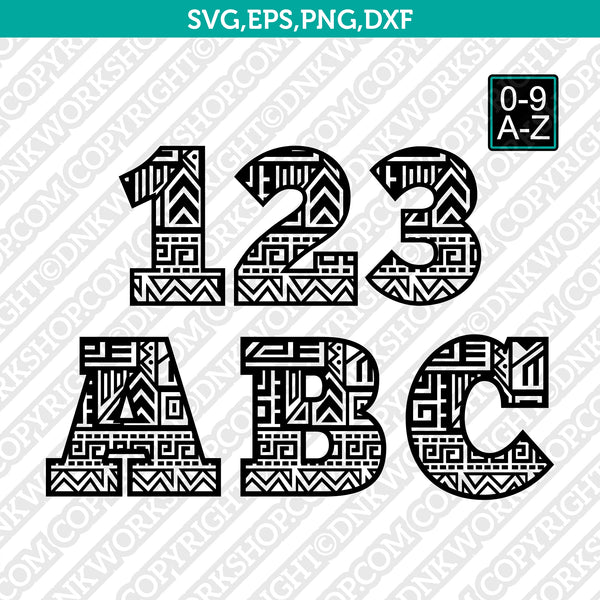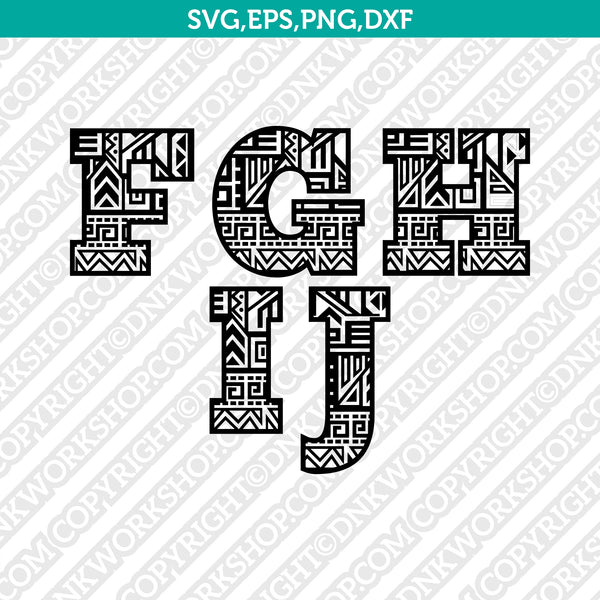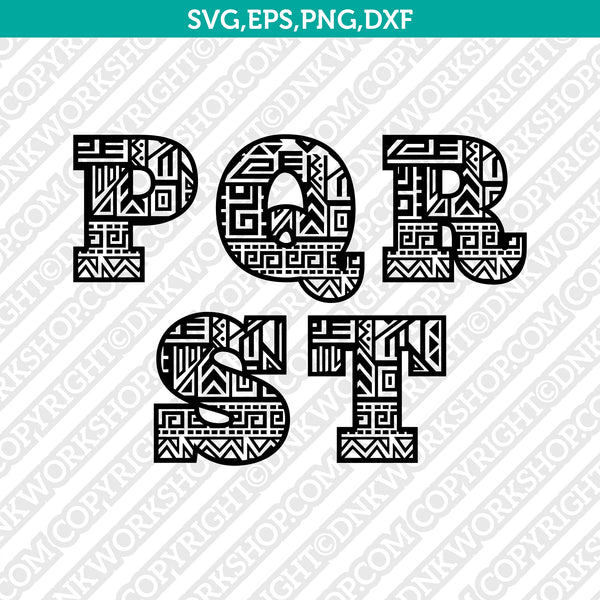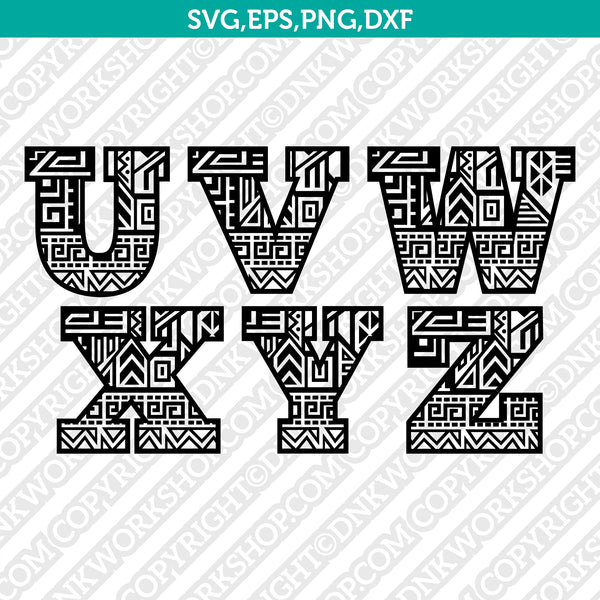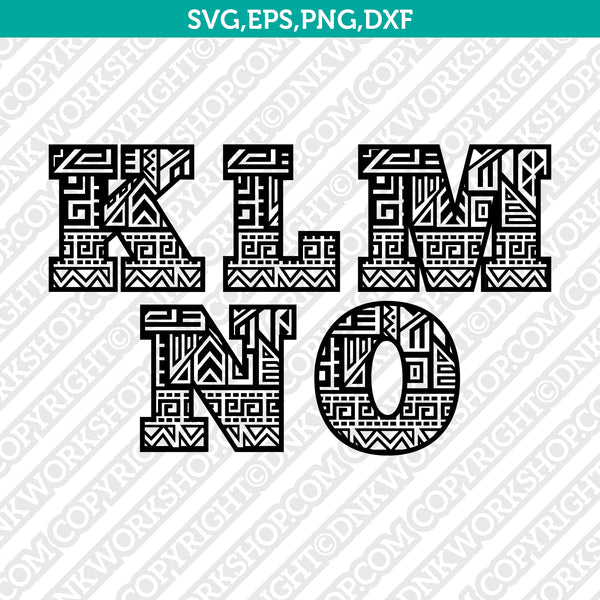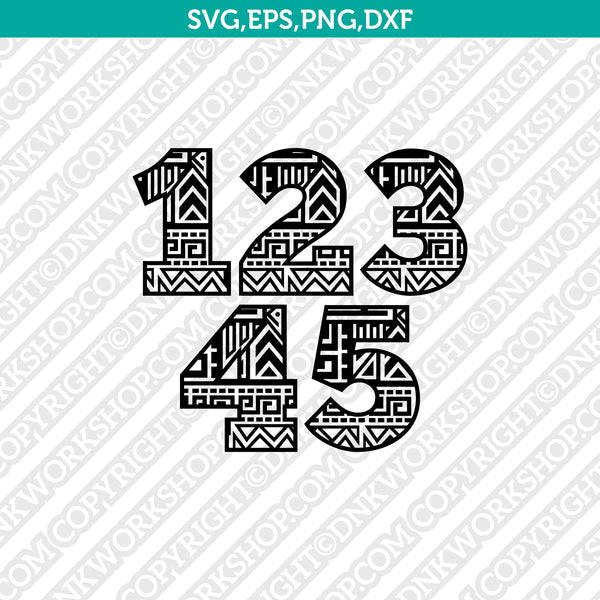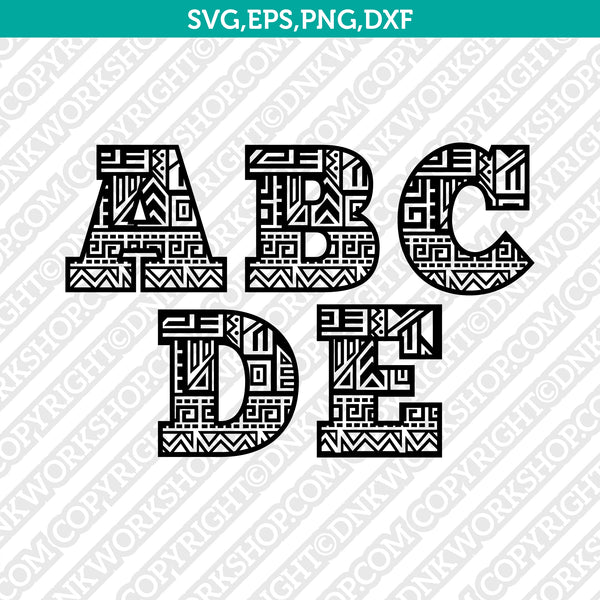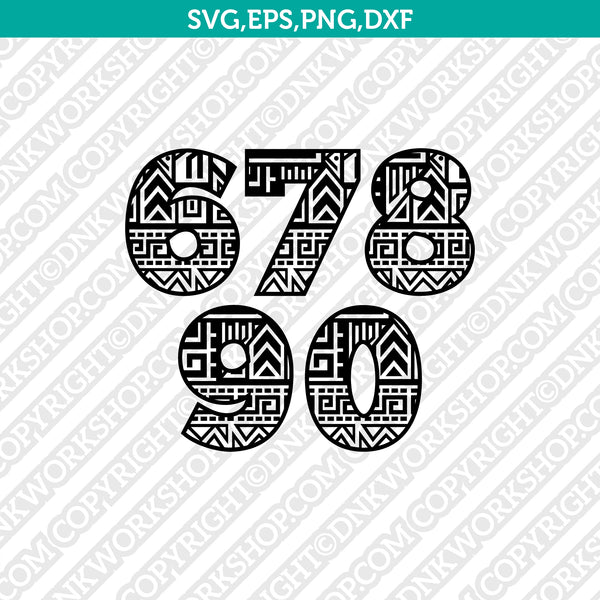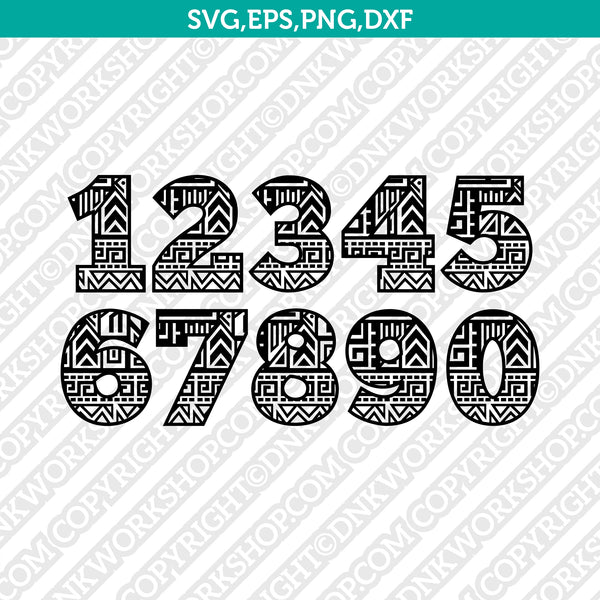
Aztec Number & Alphabet Bundle (0–9 + A–Z) SVG Vector – Tribal Lettering for Cricut & Silhouette
This Aztec Number & Alphabet Bundle includes a complete set of numbers 0–9 and uppercase letters A–Z in a bold, tribal-inspired Aztec style. Each character is provided as an individual, scalable vector design that can be resized, recolored, and edited easily with compatible software.
- Numbers: 0–9
- Letters: A–Z (Uppercase)